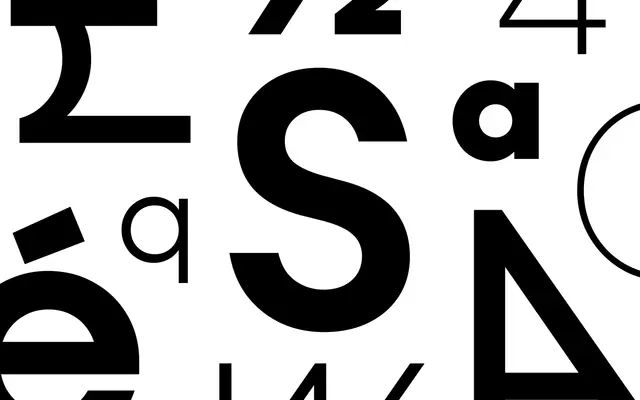
Lubalin Recast Sans
Dalton Maag · Yingtong Tan, Angel Kwong · 2024
A revival of Herb Lubalin's 1970s geometric sans, with restored ligatures and alternates and a wide Weight axis.
A geometric sans by Yingtong Tan and Angel Kwong reviving the typeface Herb Lubalin drew in the 1970s from a magazine logo. Dalton Maag's update widens the Weight axis and brings back the unusual ligatures and alternates that gave the original its voice. Pairs with Lubalin Recast Serif for editorial systems that want the full Lubalin family back in service.
Dalton Maag classifies Lubalin Recast Sans as a modern revival of a classic geometric sans typeface originally designed by Herb Lubalin in the 1970s from a magazine logo, with an extensive Weight axis and restored ligatures and alternates. Pairs with Lubalin Recast Serif.